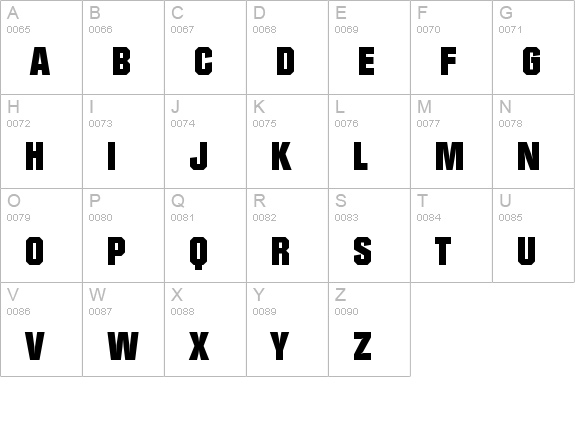
FacetBlack Regular Font Details
FacetBlack Regular is the standard, neutral variant in the FacetBlack typeface family \xE2\x80\x94 well suited to general body text, paragraphs, and standard typographic work.
Introducing FacetBlack Regular, a strikingly versatile font that effortlessly combines modern elegance with a touch of sophistication. This font is perfect for creating eye-catching headlines, captivating logos, and stunning typographic designs that demand attention. With its clean lines and bold presence, FacetBlack Regular exudes confidence and style. Its carefully crafted letterforms are meticulously designed to provide exceptional legibility and readability across various media platforms, making it suitable for both digital and print applications. Not only does FacetBlack Regular offer a visually pleasing aesthetic, but it also comes with the added benefit of being freely available to download at FontsMarket.com. This means that designers, creatives, and enthusiasts alike can enjoy the remarkable versatility and professional quality of this font without any cost or limitations. Whether you're working on a branding project, creating a poster, or designing a website, FacetBlack Regular is the perfect companion to elevate your designs to new heights. Its timeless appeal and modern edge make it a must-have addition to any designer's font library. So, why wait? Discover the endless possibilities that FacetBlack Regular has to offer and unlock your creative potential today. Download this remarkable font for free at FontsMarket.com and begin adding a touch of elegance and sophistication to your designs.